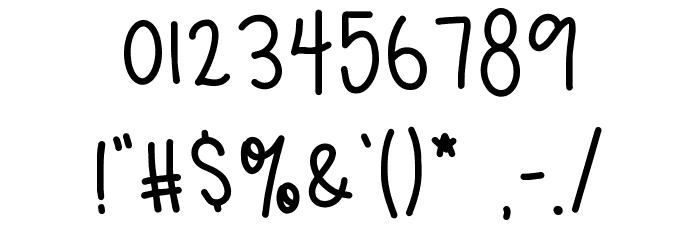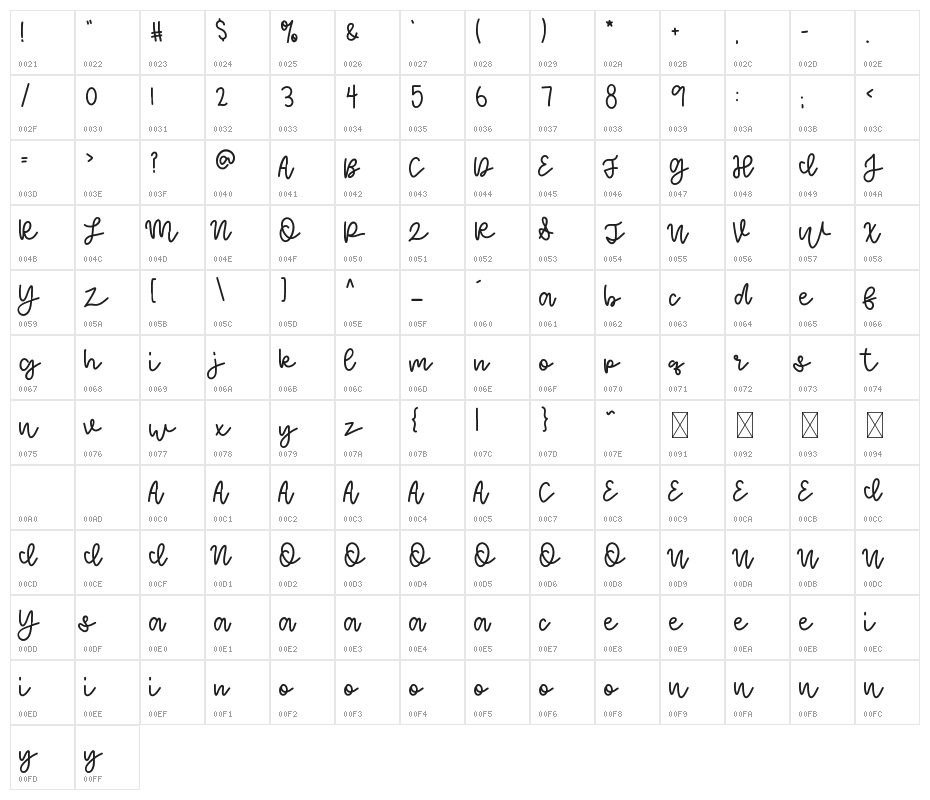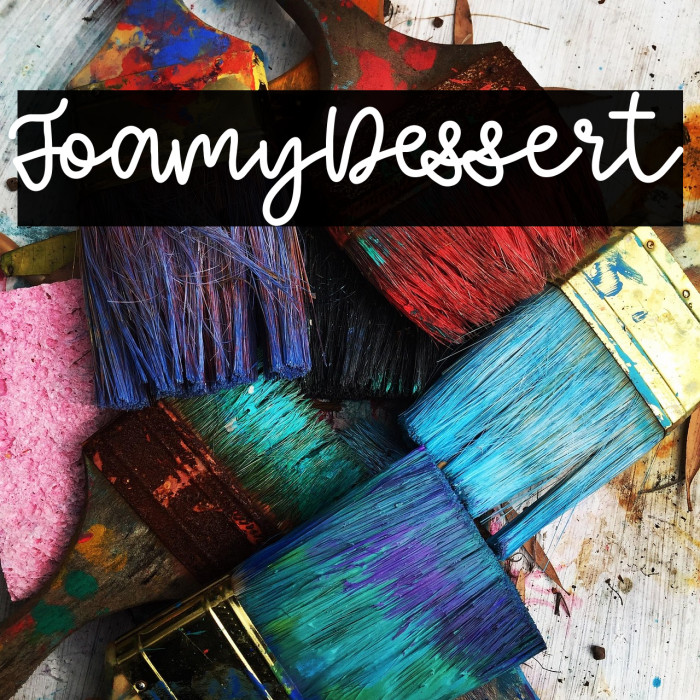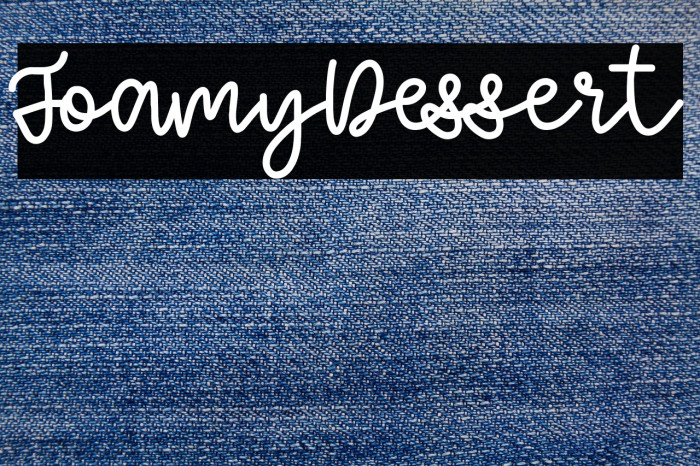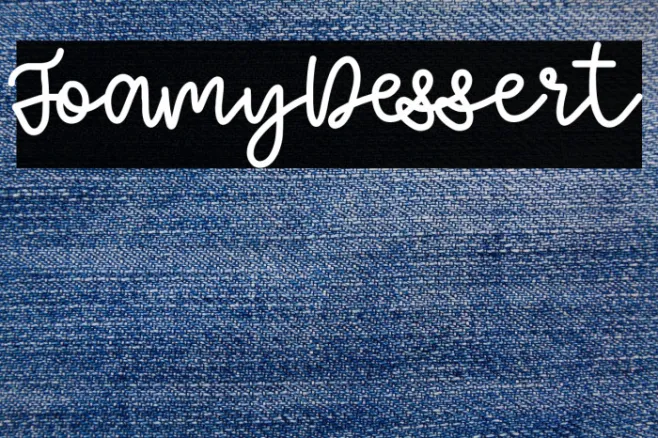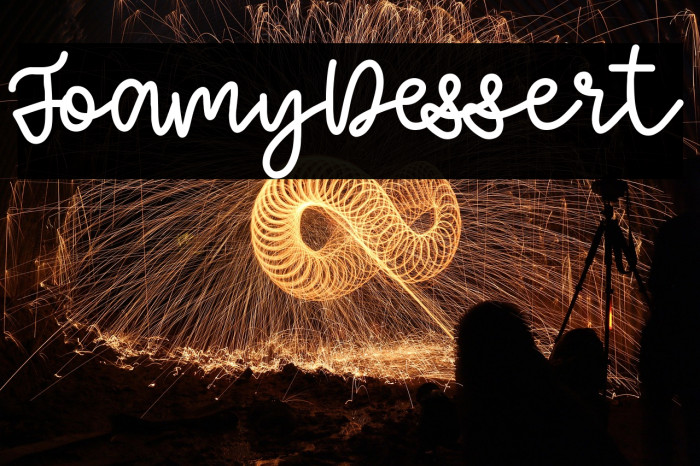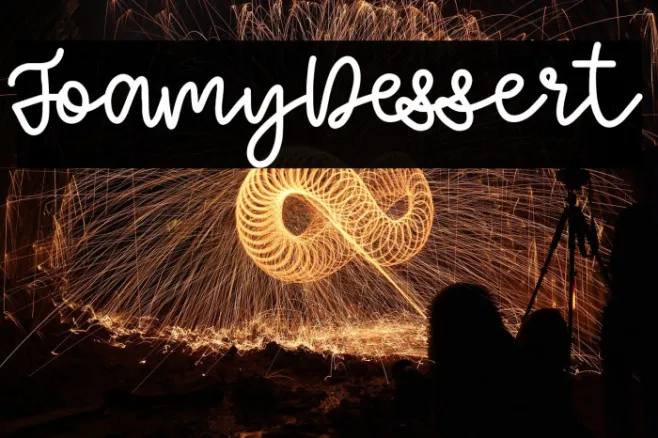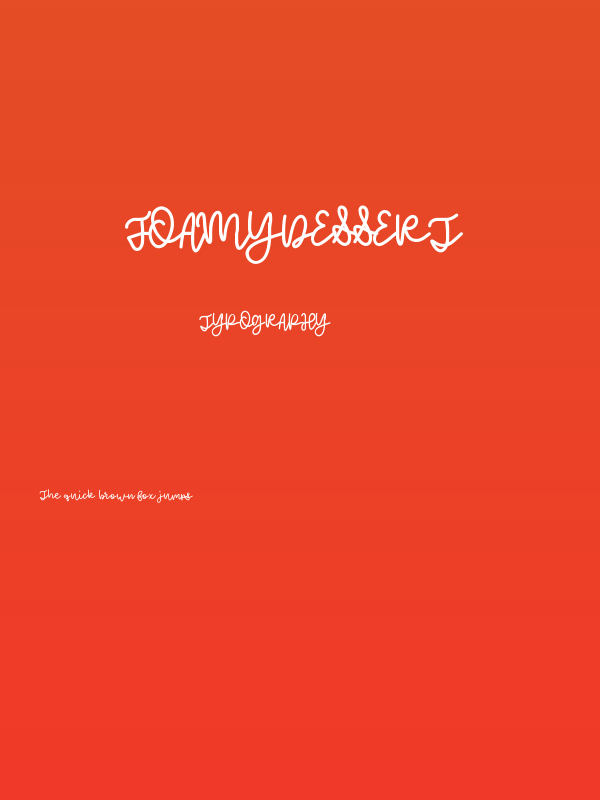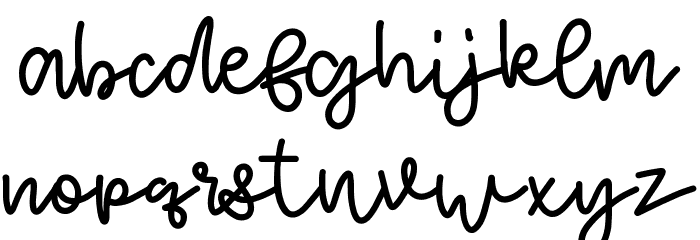
FoamyDessert Font
FoamyDessert Description
This font features a playful and casual handwritten style, characterized by its fluid and connected strokes. The letters are slightly slanted, giving it a dynamic and lively appearance. The uppercase and lowercase letters maintain a consistent flow, with rounded edges that add to its approachable and friendly feel. The numerals and special characters are designed to match the overall style, ensuring a cohesive look across all text elements. This font is ideal for projects that require a personal touch, such as invitations, greeting cards, and informal branding.